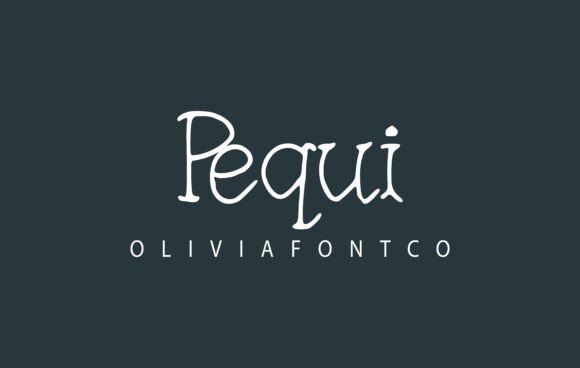
Pequi Font: The Authentic Handwritten Font with a Romantic Touch
In the world of typography, fonts play a crucial role in conveying the tone and personality of a brand or design. Among the numerous fonts available, Pequi Font stands out as an authentic handwritten font with a romantic touch. Designed to be a true favorite, Pequi Font has the potential to elevate your creative ideas to new heights. In this article, we’ll explore the features, benefits, and uses of Pequi Font, and why it’s an excellent choice for your design projects.
What is Pequi Font?
Pequi Font is a carefully crafted handwritten font that exudes a sense of romance and elegance. Its authentic and unique design makes it an excellent choice for designers looking to add a personal touch to their work. The font is legible and versatile, making it suitable for use as both title and body text.
Key Features of Pequi Font
- Authentic Handwritten Design: Pequi Font boasts an authentic handwritten design that gives it a personal and unique touch.
- Romantic Touch: The font’s romantic touch makes it perfect for designs that require a sense of elegance and sophistication.
- Legibility: Pequi Font is highly legible, making it suitable for use as both title and body text.
- Versatility: The font’s versatility makes it perfect for a wide range of design projects, from magazine headlines to social media graphics.
Benefits of Using Pequi Font
Using Pequi Font in your design projects offers numerous benefits. Some of the most significant advantages include:
- Unique and Authentic Design: Pequi Font’s unique design sets it apart from other fonts, making your designs stand out from the crowd.
- Emotional Connection: The font’s romantic touch helps create an emotional connection with your audience, making your designs more relatable and engaging.
- Flexibility: Pequi Font’s legibility and versatility make it suitable for use in a wide range of design projects.
- Ease of Use: The font is easy to use and can be integrated into various design software, making it a convenient choice for designers.
Use Cases for Pequi Font
Pequi Font’s versatility makes it suitable for a wide range of design projects. Some of the most popular use cases include:
- Magazine Headlines: Pequi Font’s elegant design makes it perfect for magazine headlines, adding a touch of sophistication to your publication.
- Social Media Graphics: The font’s legibility and romantic touch make it an excellent choice for social media graphics, helping you create engaging and shareable content.
- Branding: Pequi Font can be used to create a unique and memorable brand identity, setting your brand apart from competitors.
- Wedding Invitations: The font’s romantic touch makes it perfect for wedding invitations, adding a touch of elegance and sophistication to your design.
- Cards and Stationery: Pequi Font can be used to create beautiful and elegant cards and stationery, making it perfect for special occasions.
Tips for Using Pequi Font Effectively
To get the most out of Pequi Font, here are some tips for using it effectively:
- Use it Sparingly: Use Pequi Font sparingly to create emphasis and add a touch of elegance to your design.
- Pair it with Other Fonts: Pair Pequi Font with other fonts to create a unique and visually appealing design.
- Experiment with Colors: Experiment with different colors to find the perfect combination that complements Pequi Font.
- Keep it Legible: Ensure that your text remains legible by using a suitable font size and style.
Pequi Font is an authentic handwritten font with a romantic touch that can elevate your creative ideas to new heights. Its unique design, legibility, and versatility make it perfect for a wide range of design projects. By using Pequi Font effectively, you can create stunning designs that leave a lasting impression on your audience.
- What is Pequi Font? Pequi Font is an authentic handwritten font with a romantic touch.
- Is Pequi Font legible? Yes, Pequi Font is highly legible and suitable for use as both title and body text.
- Can I pair Pequi Font with other fonts? Yes, Pequi Font can be paired with other fonts to create a unique and visually appealing design.